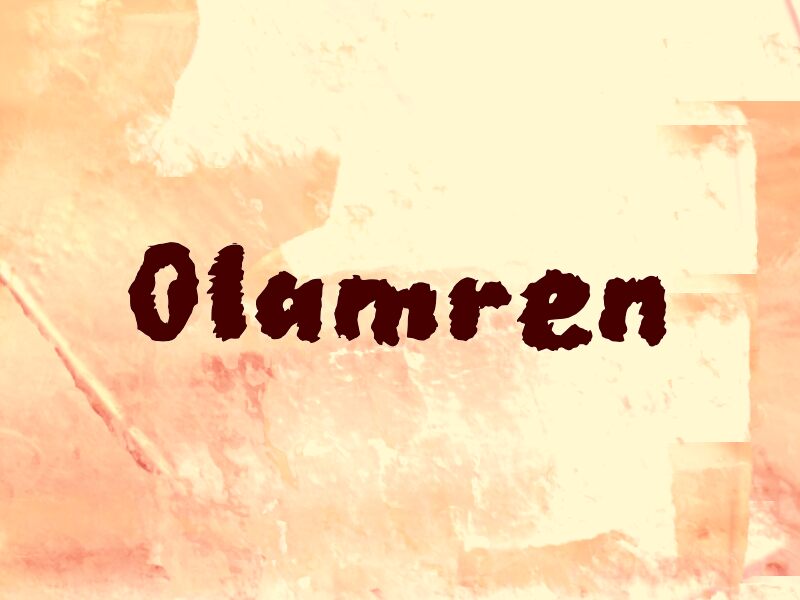
Olamren by Wep is a free brush font defined by a rough, cut-ink silhouette that makes each letter read like it was pressed out with a dry, overloaded tool. The jagged outer edge and lumpy interior rhythm give the lettering a blunt, handmade texture rather than the smooth sweep of a typical script brush style.
That coarse shape makes sense on poster titles, album art, horror flyers, game graphics, and packaging that needs a smeared, physical mark instead of neat lettering. Short branding lines and social headers also benefit from its battered edge, especially when the design wants a gritty stamp-like presence rather than polished brush calligraphy.
Olamren
Olamren font presentation and specimen